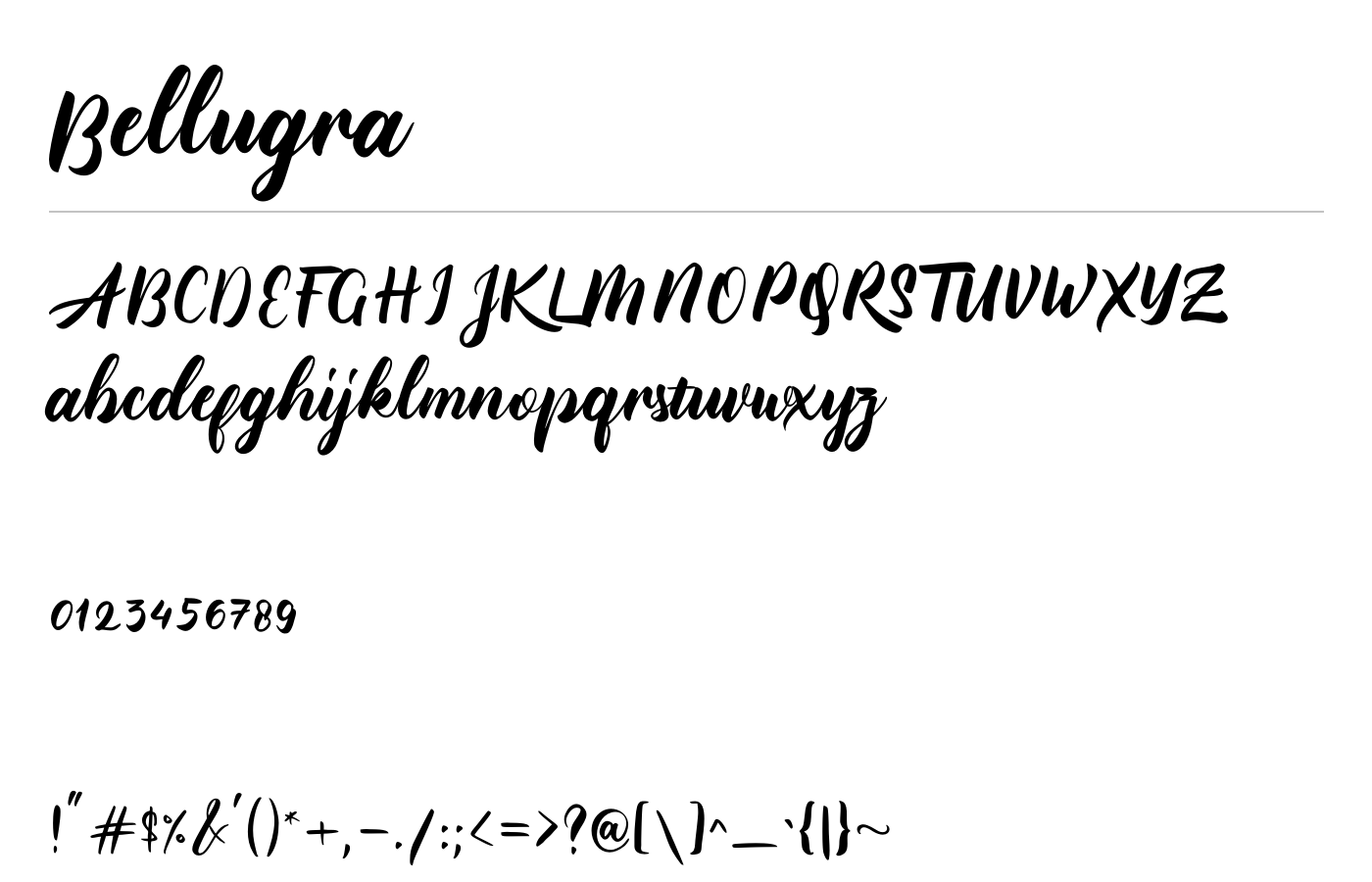
Bellugra is a lively script font with smooth, flowing strokes and a medium weight that creates a friendly and approachable feel. Its cursive style, combined with varied stroke widths and unique letter shapes, lends a personal, artistic touch ideal for creative branding, invitations, or headlines where warmth and personality are key. This font works well in contexts that benefit from an elegant yet casual vibe, making it perfect for fashion, lifestyle, and boutique design projects.
Bellugra Font
About Bellugra Font
| Font family | Bellugra Font |